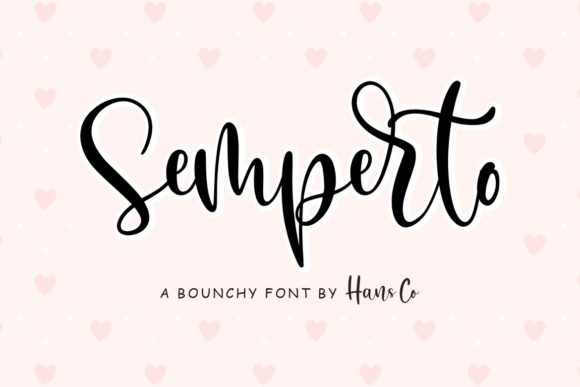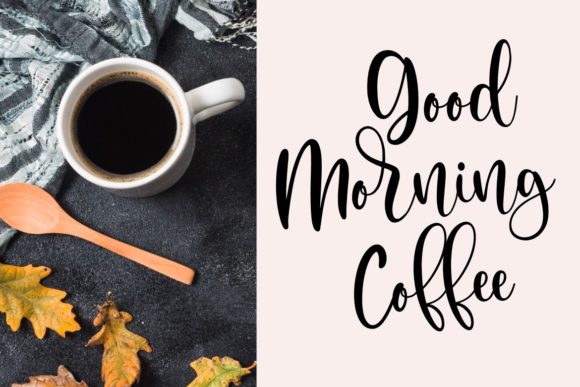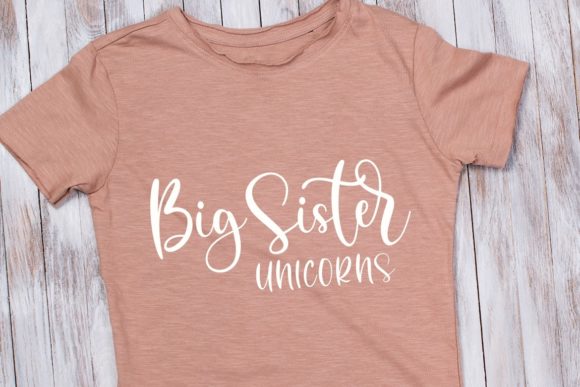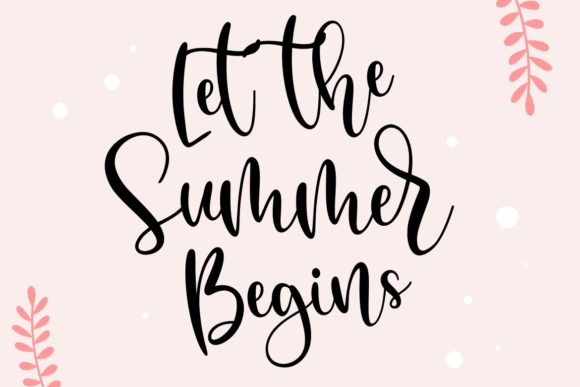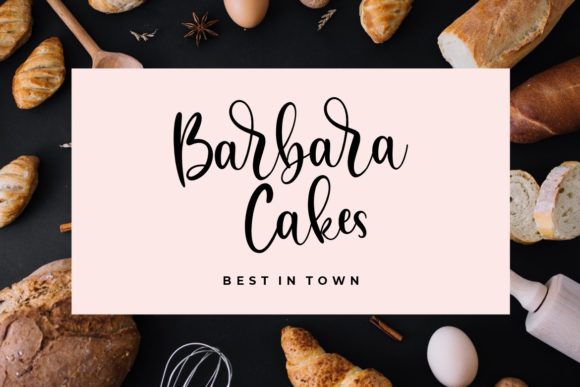
About Semperto Font
Semperto is a romantic and sweet calligraphy typeface with characters that dance along the baseline. It will add a luxury spark to any design project that you wish to create! This font is PUA encoded which means you can access all of the amazing glyphs and ligatures with ease!